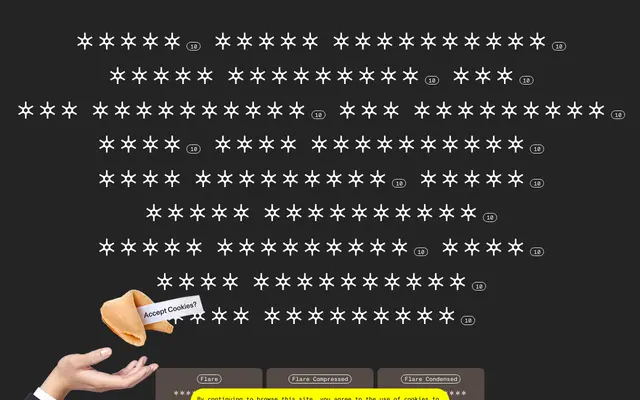
Arizona
Dinamo Typefaces · Elias Hanzer with Alex Lescieux
A variable superfamily by Elias Hanzer and Alex Lescieux that packages five stylistic registers — from high-contrast serif to humanist grotesque — into a single font file.
Arizona runs from a high-contrast, Renaissance-inflected serif at one extreme to a clean grotesque sans at the other, with Flare, Mix and Text occupying the hybrid territory between them. Each of the five sub-families comes in three widths and five weights with italics throughout, all housed in a single variable font file. The family has been used by the San Francisco Symphony, Glyphs and the Fashion Research Library, covering a range from fine editorial typesetting to large-scale display work.
Arizona spans five stylistic sub-families from high-contrast Renaissance-influenced serif to humanist grotesque sans, making it genuinely cross-categorical; classified here as serif because that marks one pole of its design range, though it is most accurately a superfamily variable font.